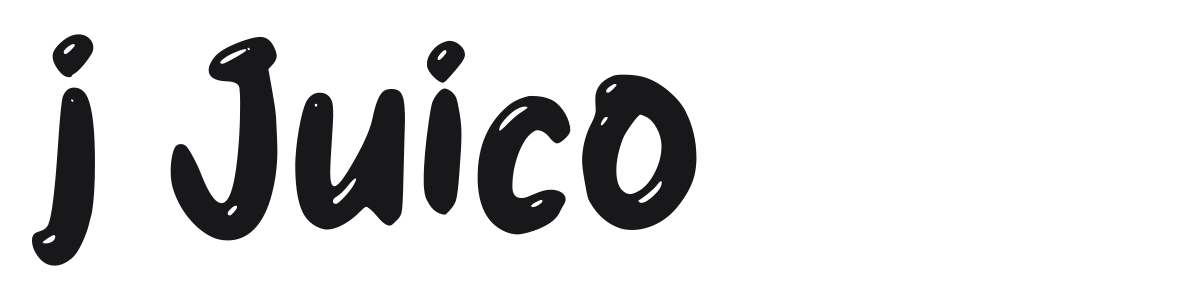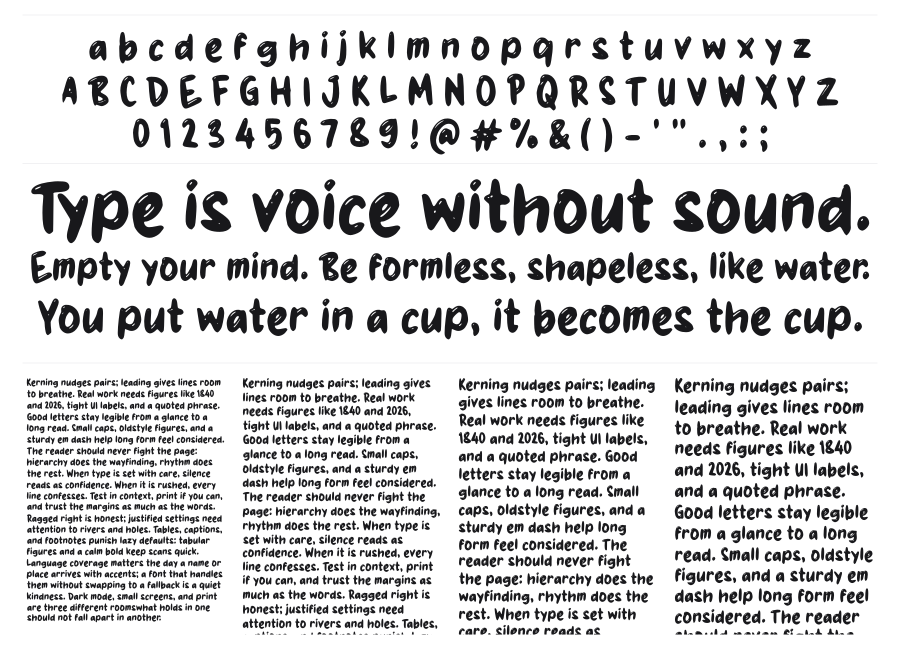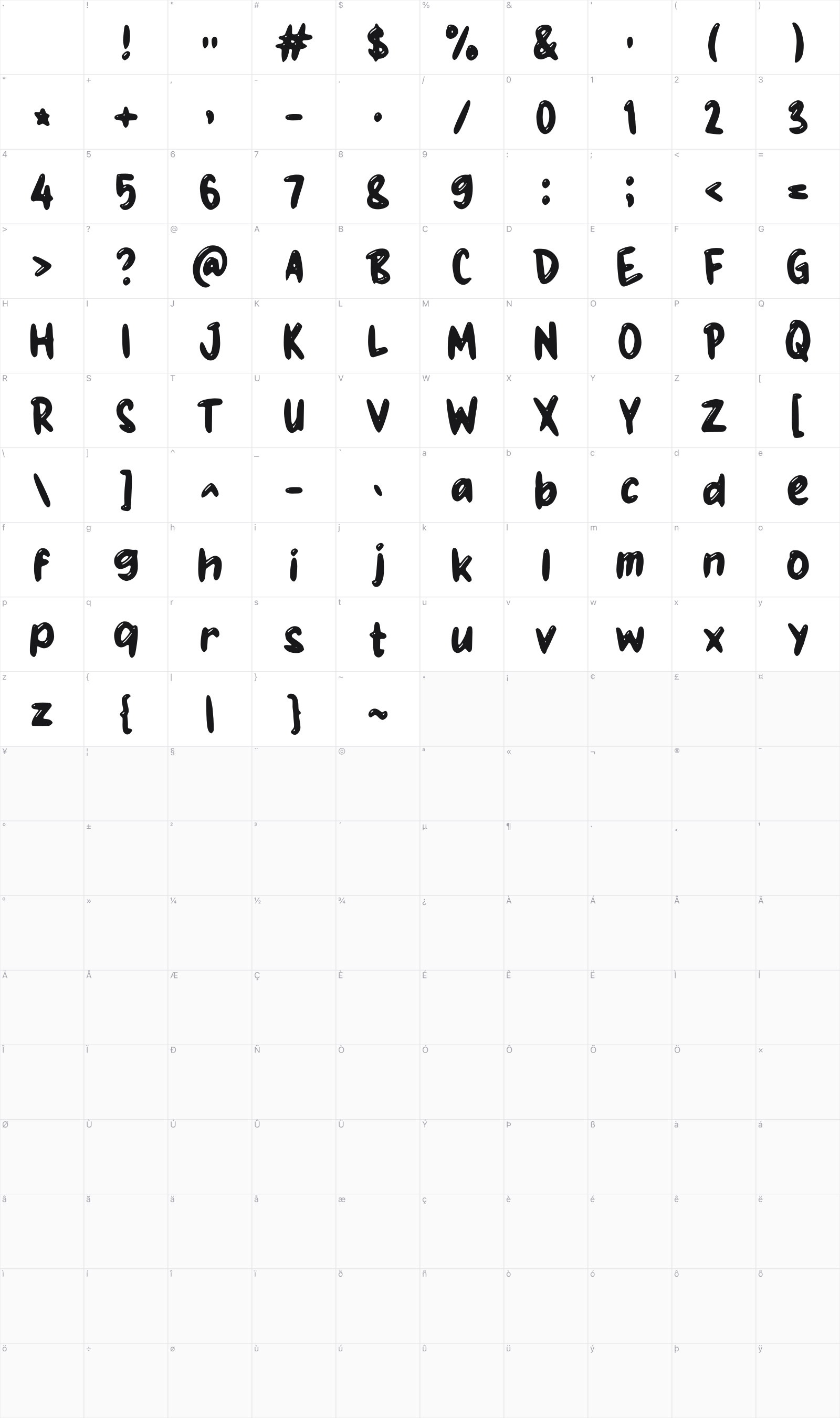
j Juico
Juico is a bold brush script with chunky, rounded strokes and the organic swells of real hand-lettering. The irregular baseline and ink-pooling at stroke joints keep it feeling spontaneous rather than templated. It carries a lot of personality at large sizes, leaning energetic and youthful.